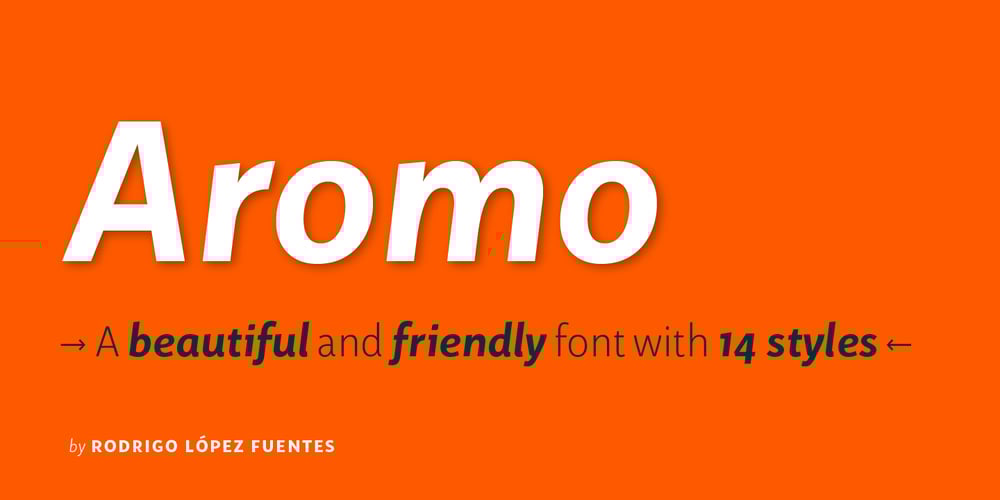
Aromo
Aromo font
Aromo Font Family was designed by Rodrigo López Fuentes and published by Underground. Aromo contains 14 styles and family package options. Aromo was initially conceived for editorial purposes. This typeface mixes the versatility of a simple and modern sans-serif, with the sensibility of the humanist feeling: thus making it useful in a wide range of purposes when a balanced and friendly font, with elegant proportions and high readability is required. The functional nature of its design is complemented by a family of 14 variants (7 weights, plus their matching true italics) interpolated optically for application as a hierarchical resource, where the middle weights (Light, Regular) have been optimized for use in small bodies, while the extremes (Ultra Light, Black) where designed for display environments. Aromo also offers a wide range of historical and discretionary ligatures, small caps, eleven different types of numerals and a set of more than 700 characters covering about two hundred languages of Latin script.